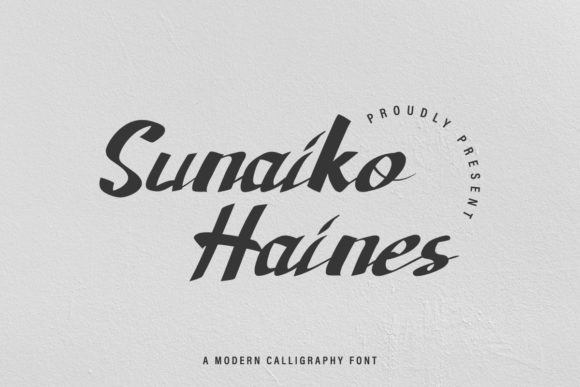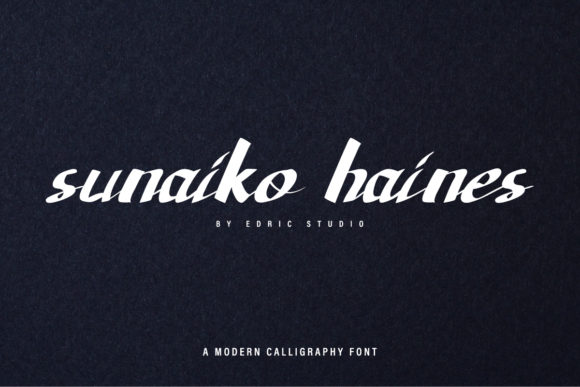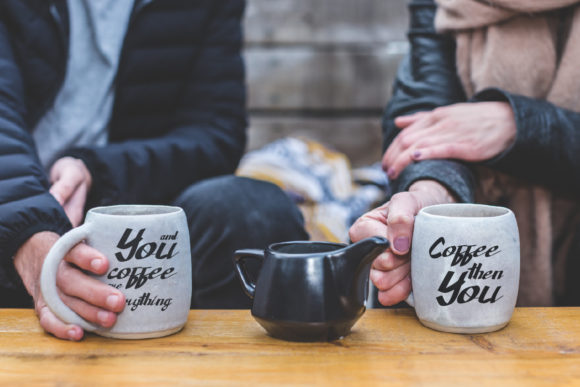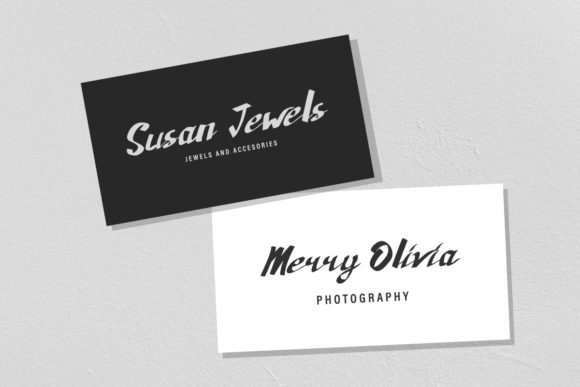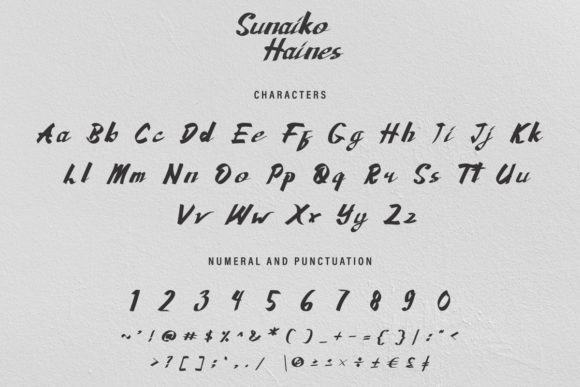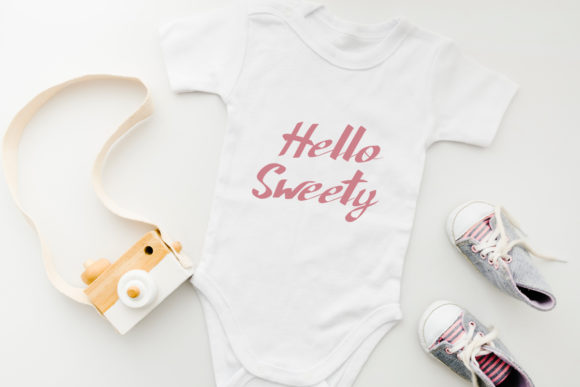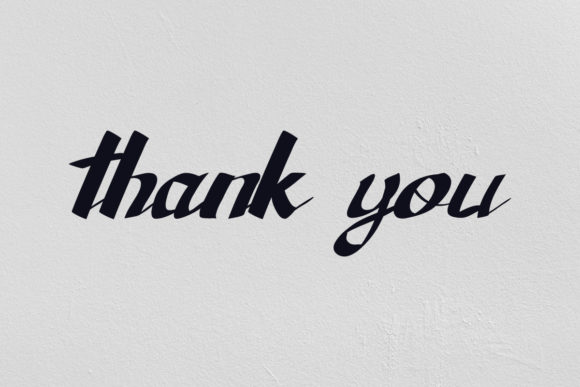
Sunaiko Haines Font
About Sunaiko Haines Font
Sunaiko Haines is a distinct and elegant handwritten font. Fall in love with its incredibly versatile style and use it to create gorgeous wedding invitations, beautiful stationary art, eye-catching social media posts, and much more!